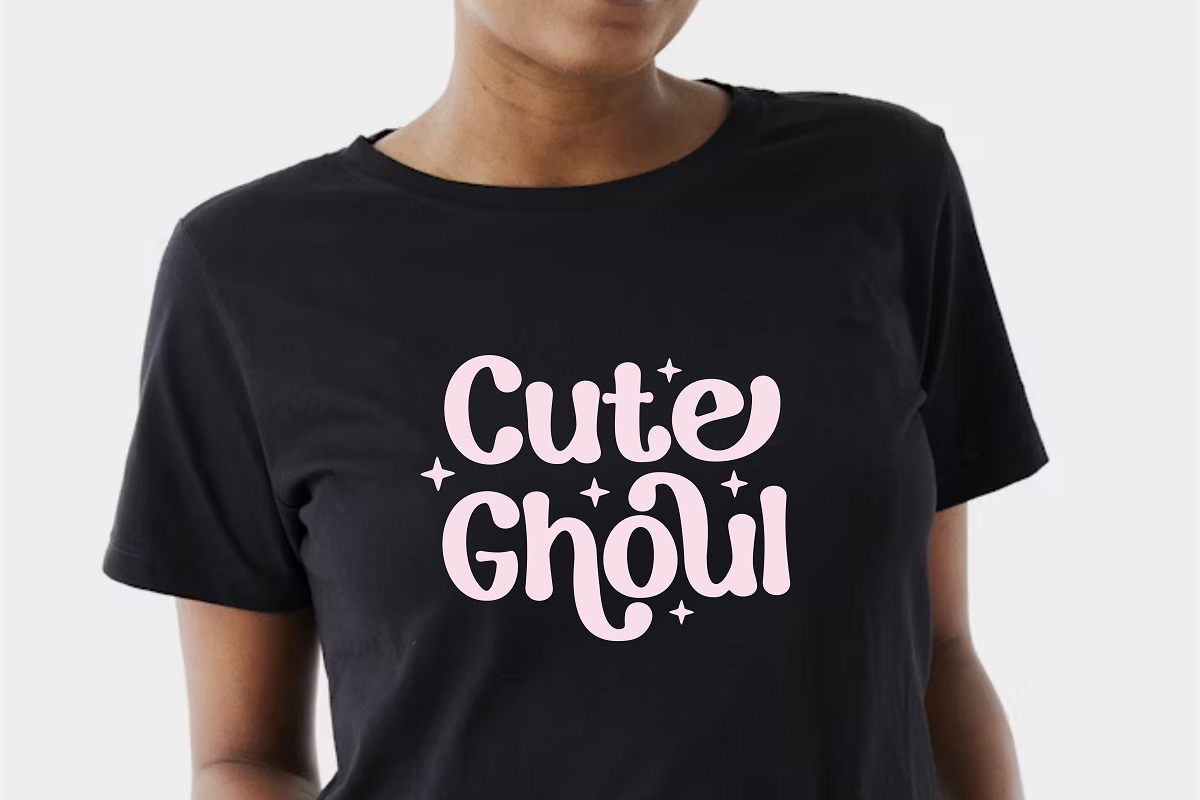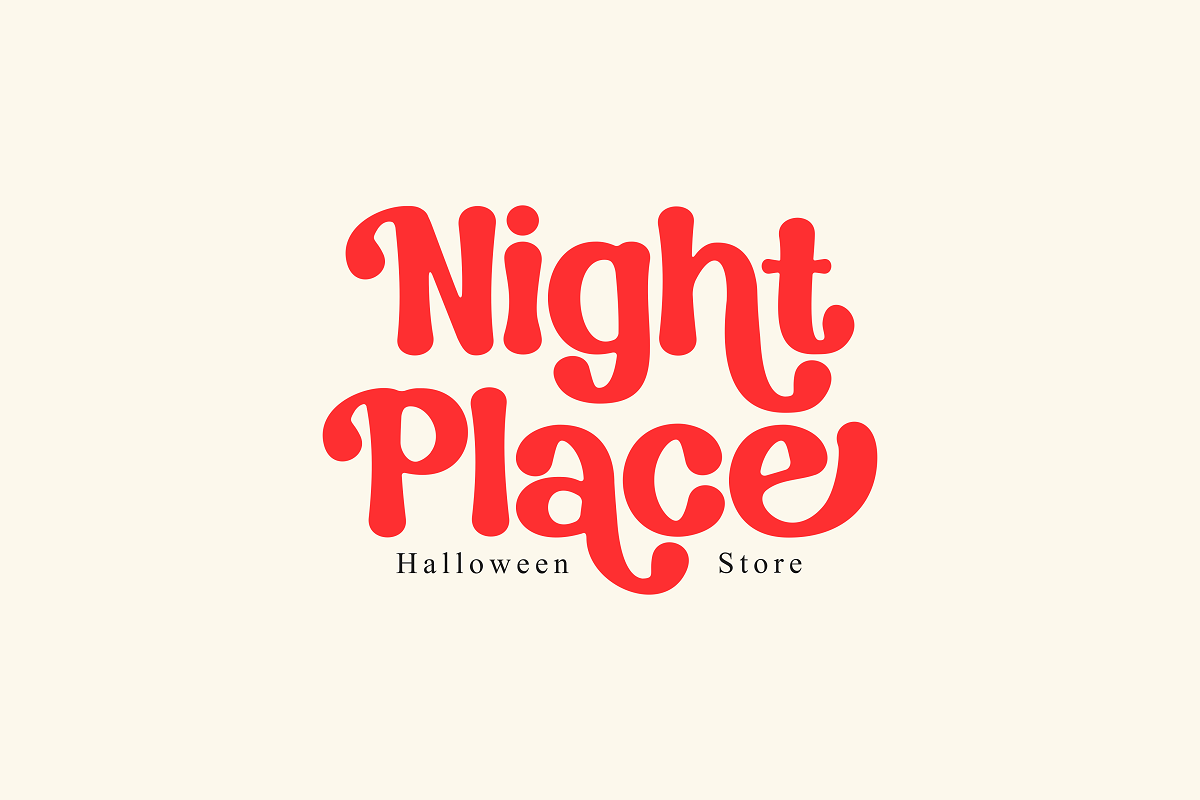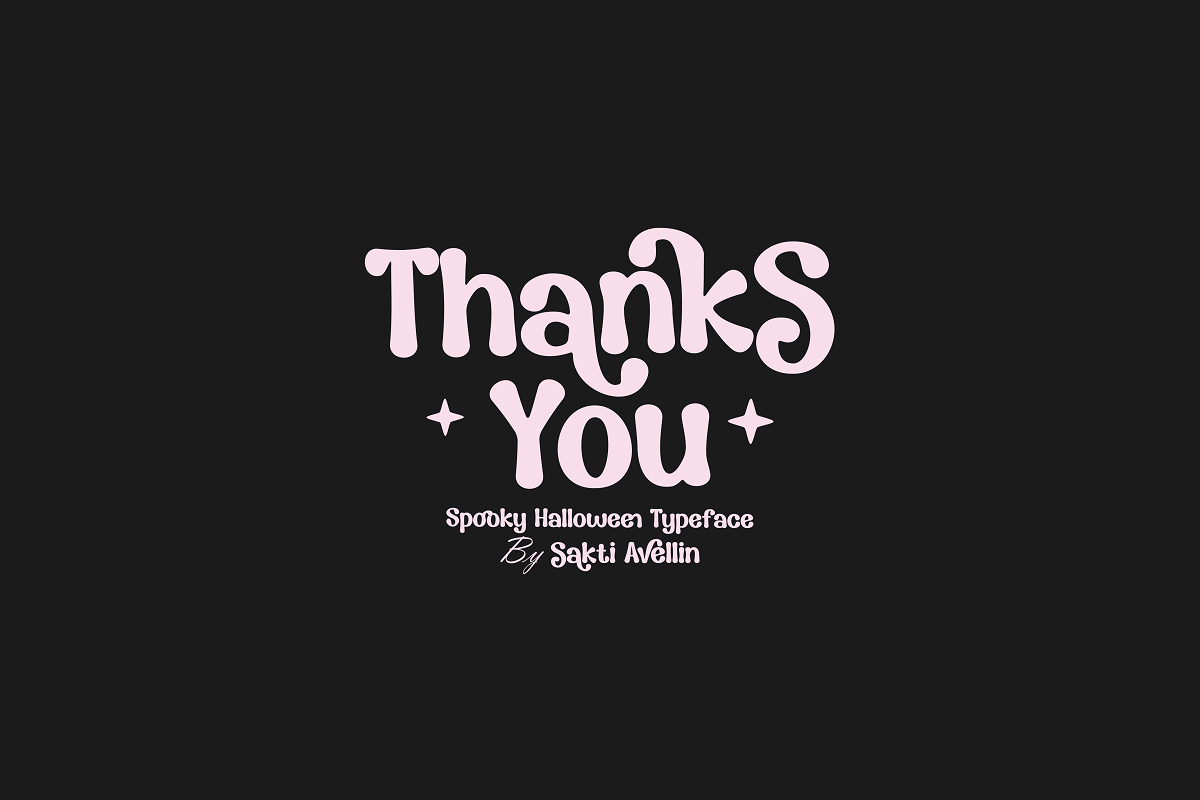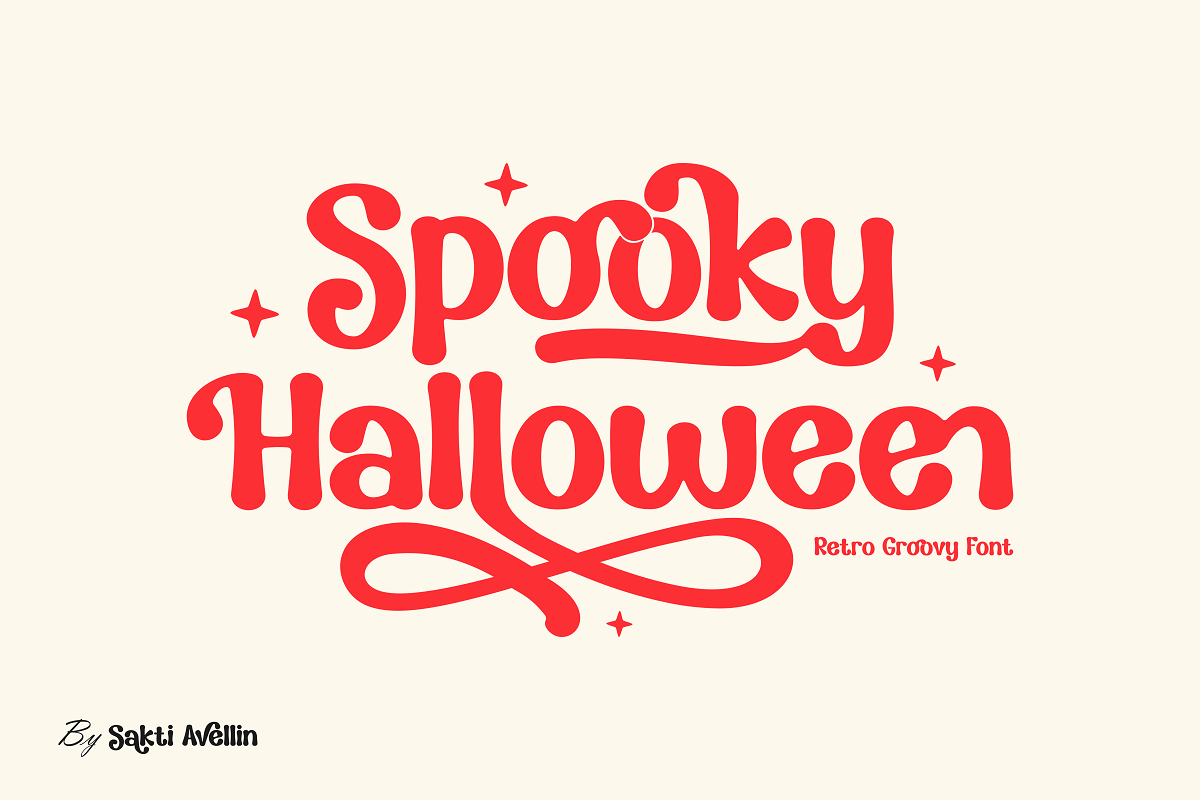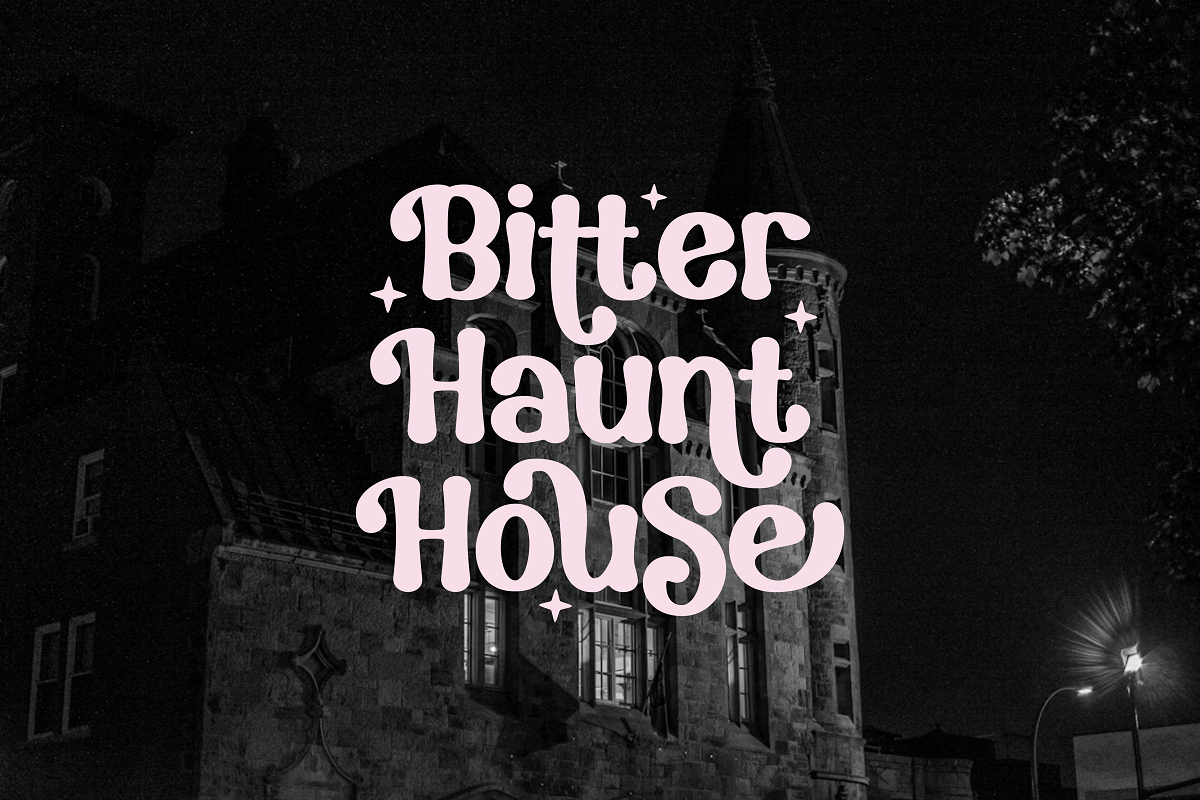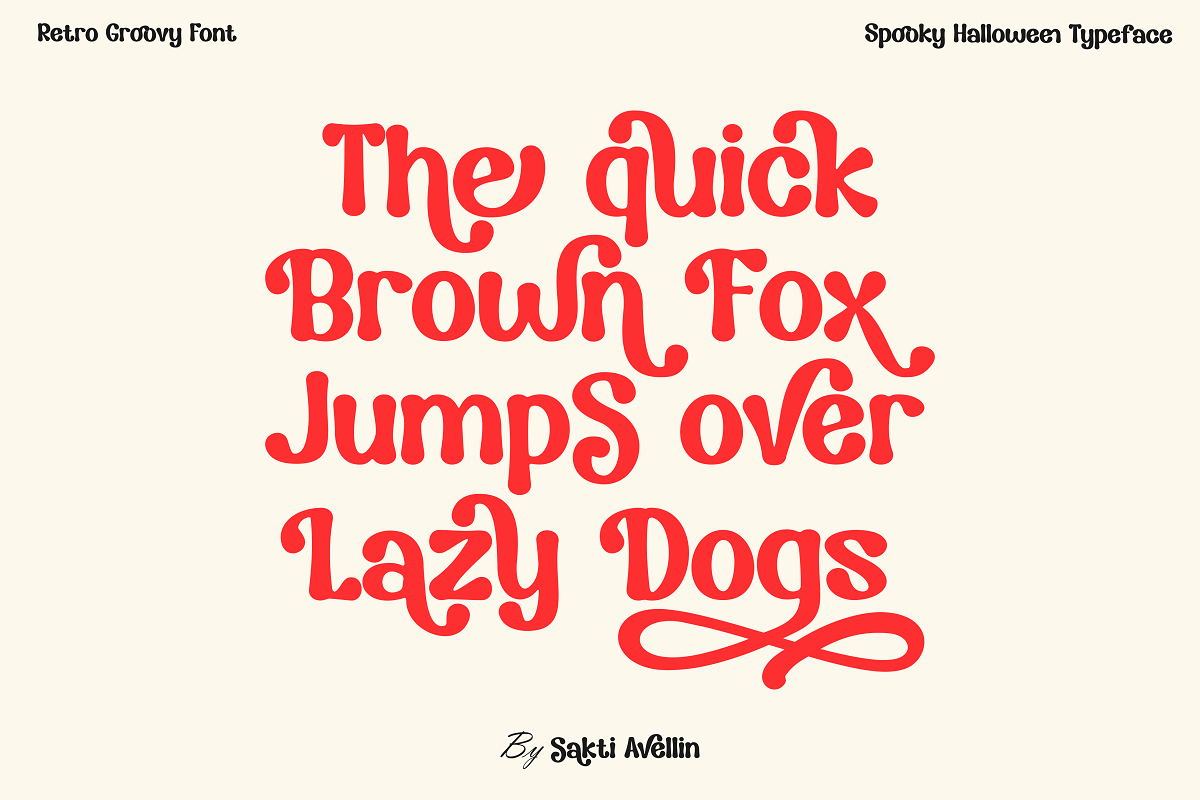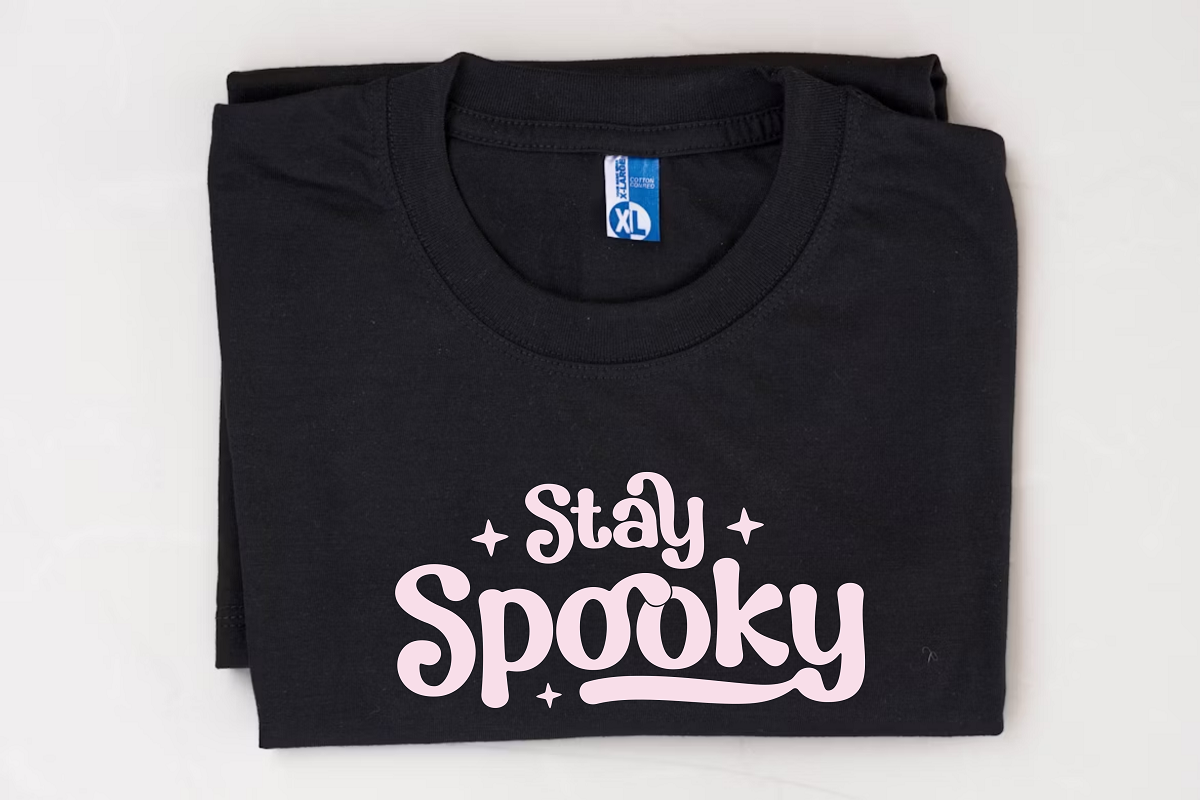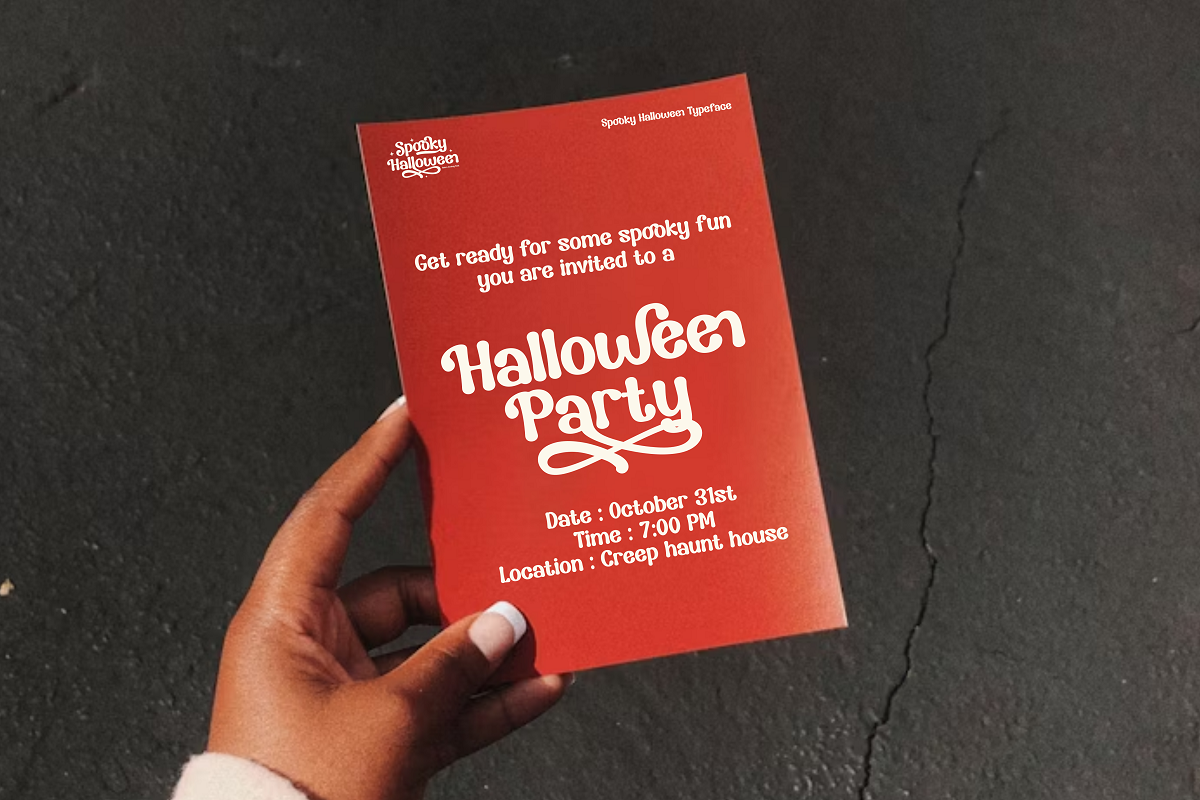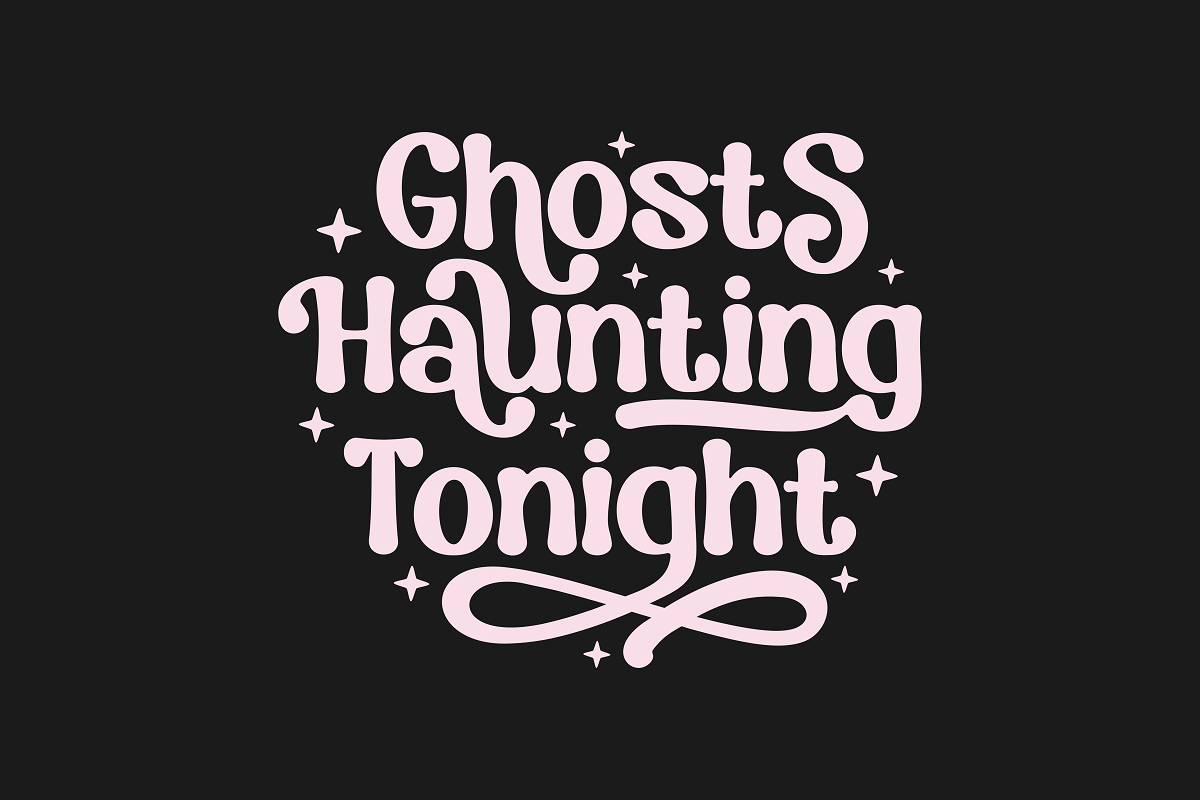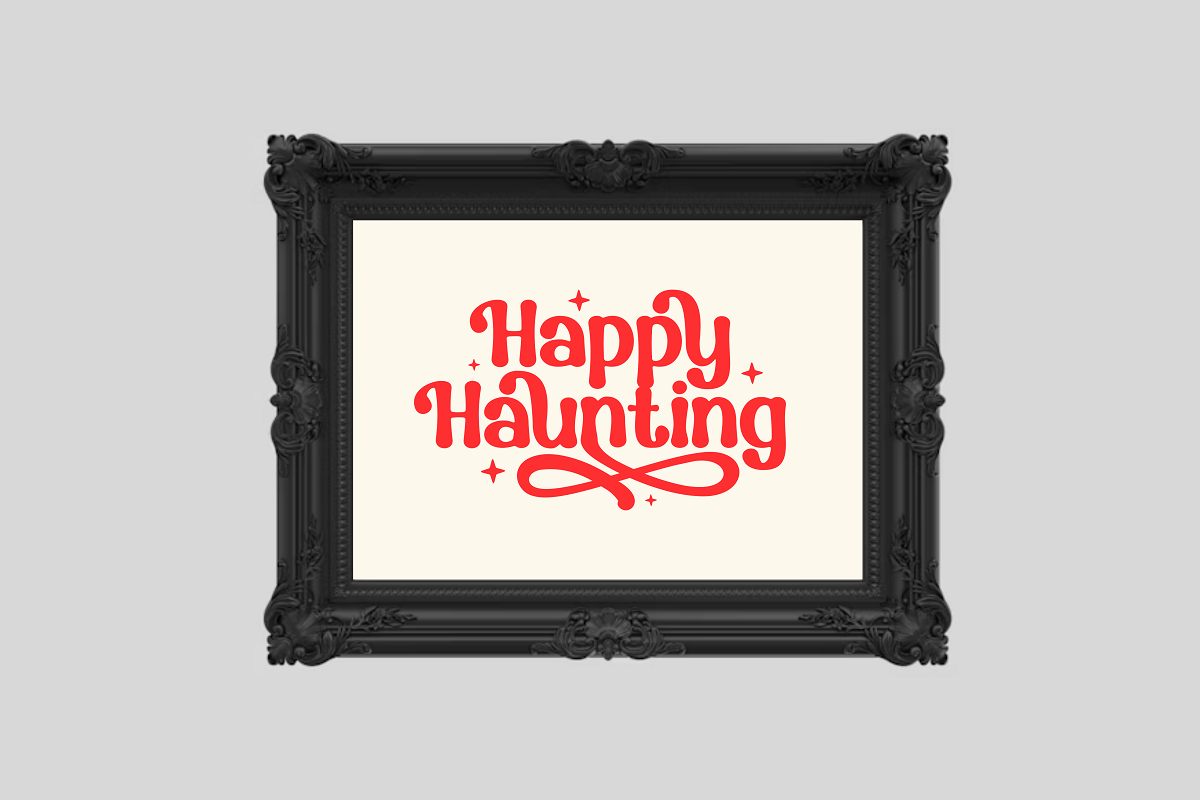
Spooky Halloween - Groovy Font
Spooky Halloween is a spectacularly fun and groovy retro font that perfectly merges a cute aesthetic with a classic Halloween theme. This chunky display font features smooth, exaggerated curves and a playful flow, capturing the nostalgic vibe of the 1970s. It is essential for Halloween invitations, eerie seasonal branding, ghost-themed t-shirt designs, spooky posters, and frightening social media graphics. Its distinctive, bold style ensures it is a powerful display typeface for headlines and product packaging, appealing to a trendy audience seeking a fun, vintage horror look. Get ready for some groovy scares with this delightfully retro groovy font!